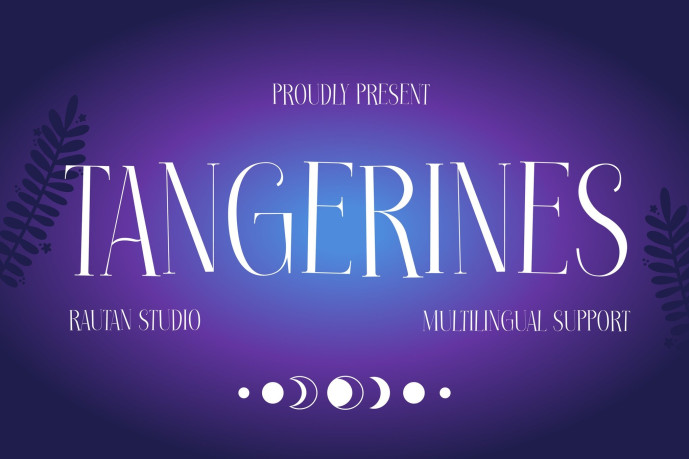
Tangerines Serif Font
Tangerines Serif Font is a mystical editorial display typeface designed for fantasy branding, dark academia visuals, and magical storytelling projects, featuring elegant serif structures, delicate contrast, and elongated letterforms that create a refined yet atmospheric visual identity. Its decorative personality blends vintage elegance with celestial-inspired styling, giving headlines a dramatic and immersive presence.
Crafted with graceful proportions and expressive details, Tangerines feels both artistic and readable, making it suitable for book covers, movie posters, cosmetics packaging, social media campaigns, and editorial compositions. The font carries a dreamy narrative tone that helps designers build emotional depth and cinematic aesthetics across visual projects. With support for 67 multilingual languages, Tangerines allows creators to develop globally adaptable branding while preserving its enchanting character and editorial sophistication.
Tangerines brings a mystical editorial feel to branding, posters, book covers, packaging, and social media designs. Its elegant serif style and cinematic atmosphere help create emotional, eye-catching visuals perfect for fantasy, dark academia, and luxury-inspired creative projects.